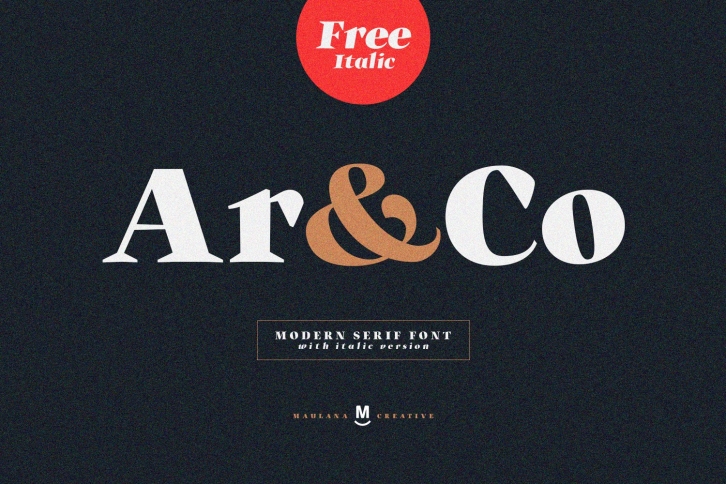
Ar and Co Serif is a trendy and unique font with an authentic style. It was designed by Maulana Creative and it's a great choice for creative people who need such a font. It was released on May 18, 2019 and the file size is 6.49 MB. Ar and Co Serif will add an organic vibe to any design idea!